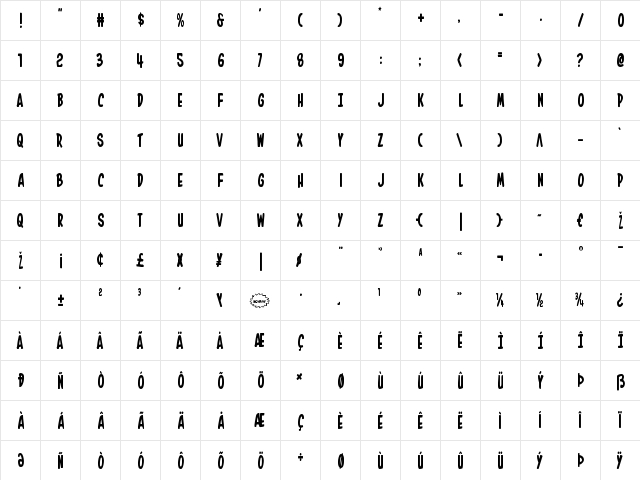
In-House Edition Condensed Condensed
Design Context for In-House Edition Condensed Typeface
In-House Edition Condensed offers clean, dependable letterforms without strong stylistic allegiance, making it a practical choice for designers who need flexibility. Its narrow stance lets it pack a punch even in space-constrained designs.